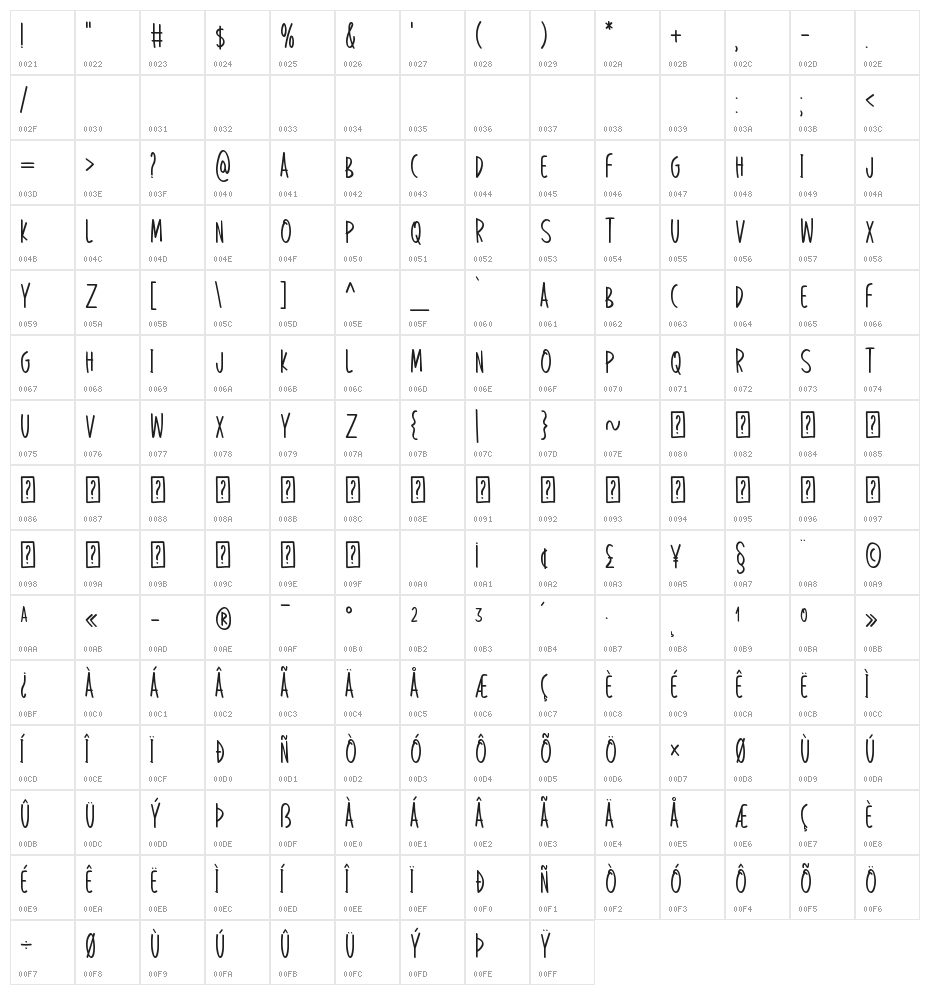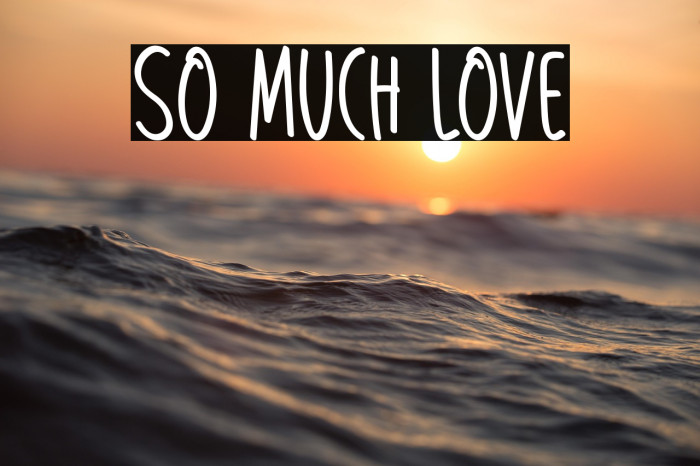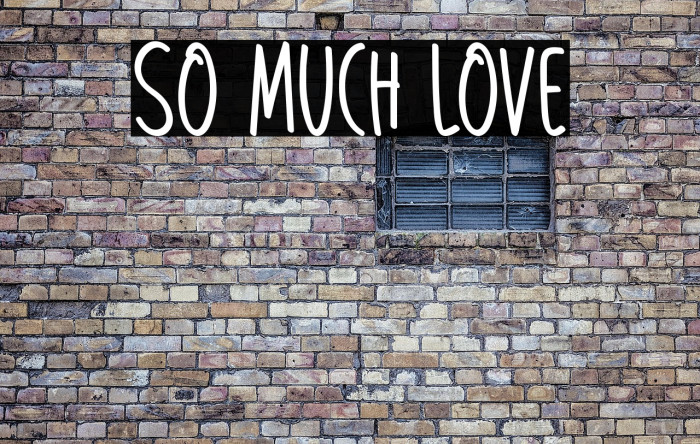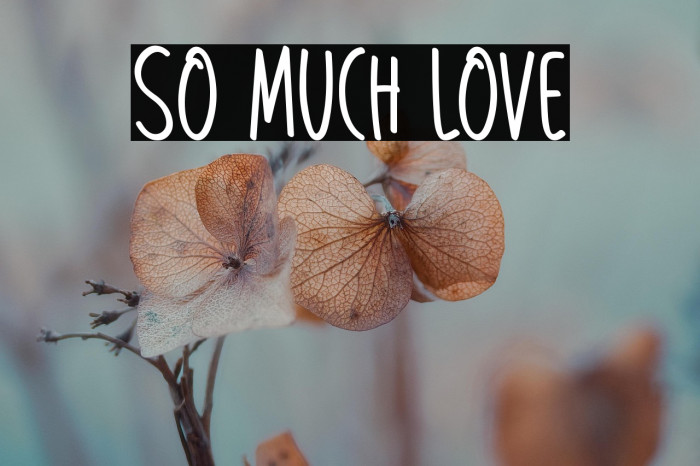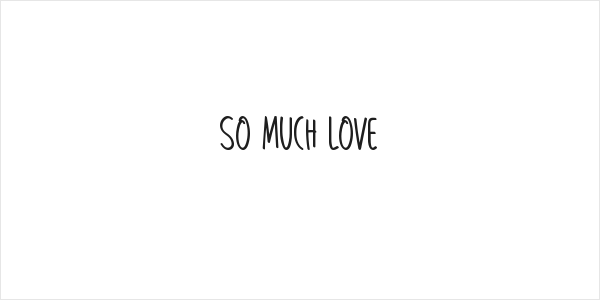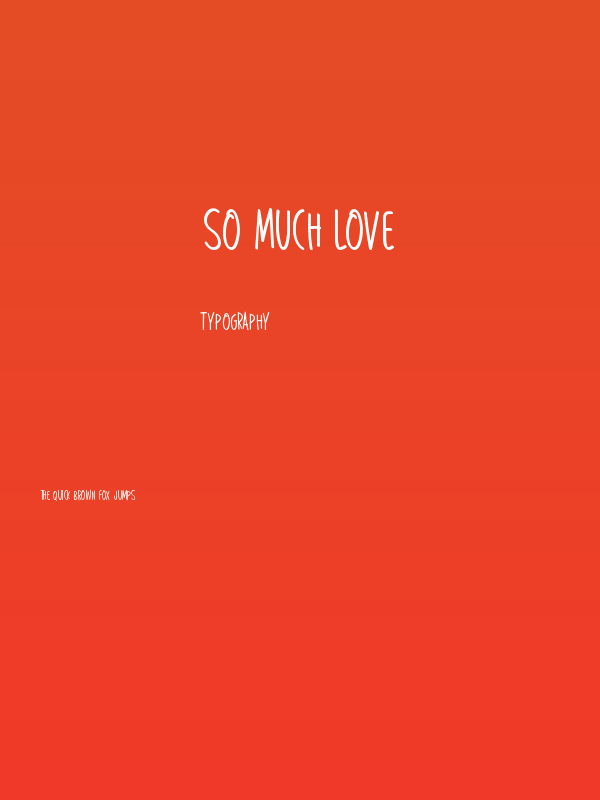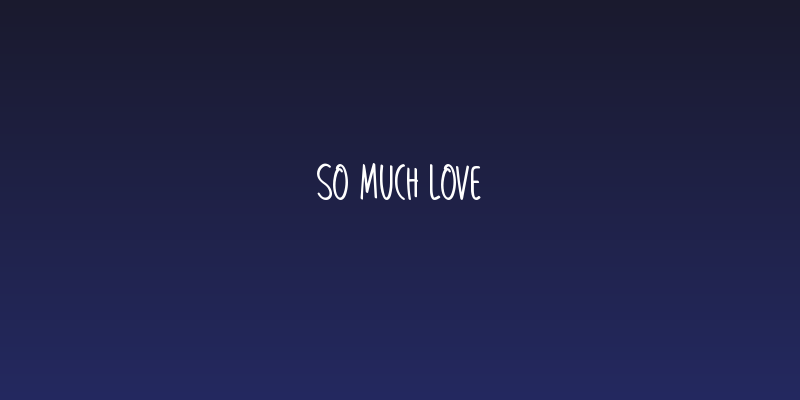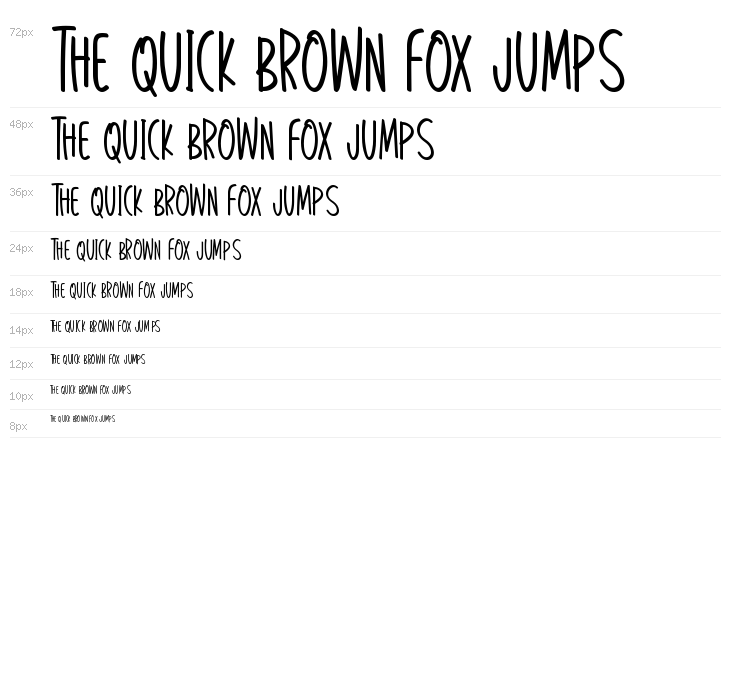
So Much Love Font
So Much Love Description
This font features a playful and casual handwritten style, characterized by its tall, narrow letterforms and slightly irregular strokes. The uppercase and lowercase letters maintain a consistent height, giving it a uniform appearance. The strokes are smooth and rounded, adding to its approachable and friendly vibe. The special characters are designed to match the overall aesthetic, making it versatile for various uses. Its simplicity and charm make it suitable for projects that require a personal touch.
| Use Case | Headlines, Informal text, Branding |
| Proposed Projects | Ideal for greeting cards, children's books, casual branding, and social media graphics. |